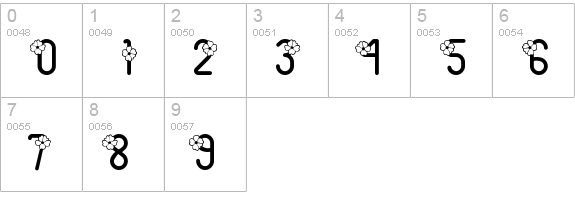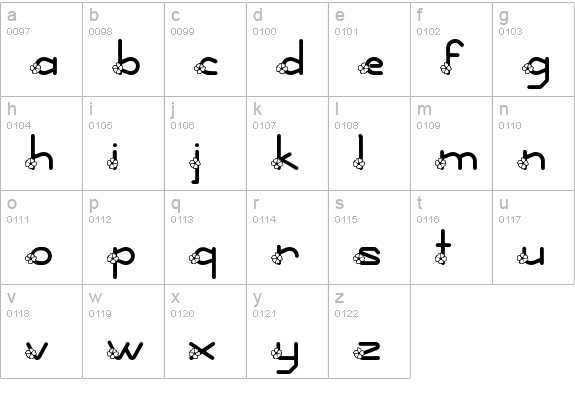
AC3 Wildflower Font Details
The AC3 Wildflower font is a whimsical and charming typeface that exudes a sense of natural beauty and elegance. Its delicate strokes and intricate details make it perfect for adding a touch of flair to any design project. Whether you're creating invitations, posters, or branding materials, this font is sure to make a statement. What makes AC3 Wildflower even more appealing is that it is free to download at FontsMarket.com. Yes, you heard that right - you can easily access this stunning font without any cost. So, why wait? Add a touch of wildflower beauty to your designs today with AC3 Wildflower font.